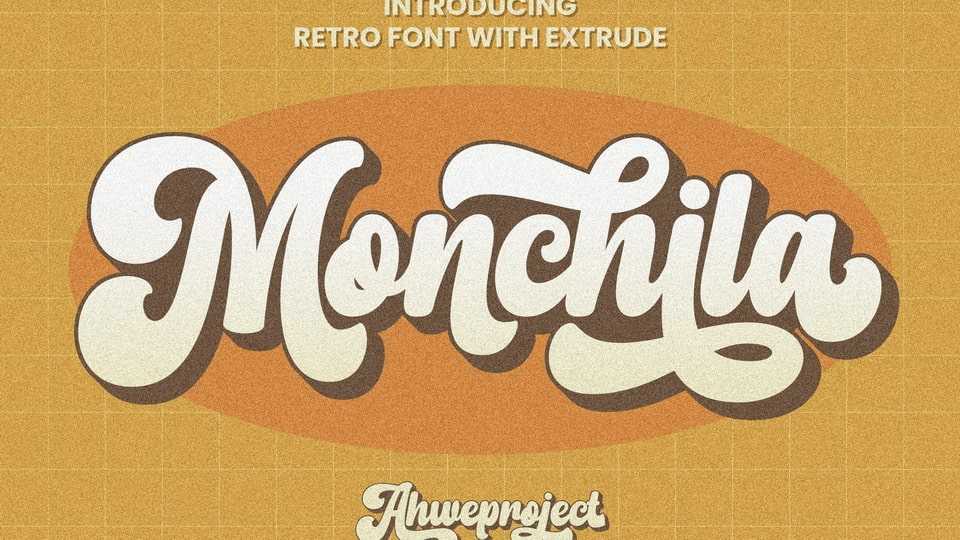
Download Monchila font, a fun, retro-style script display typeface that is ready to take your designs to the next level. Add it to your vintage-inspired posters, stickers, apparel, or social media posts and you will definitely impress your audience.